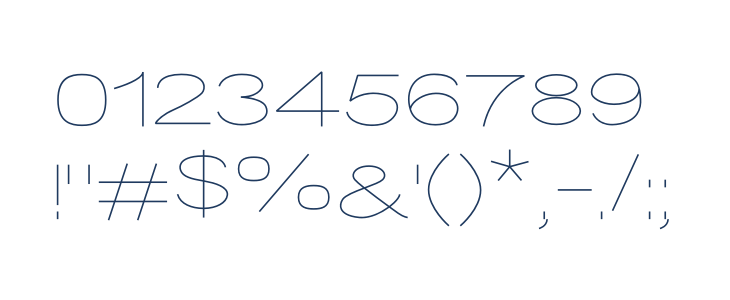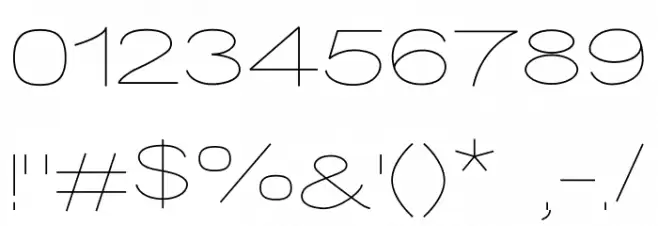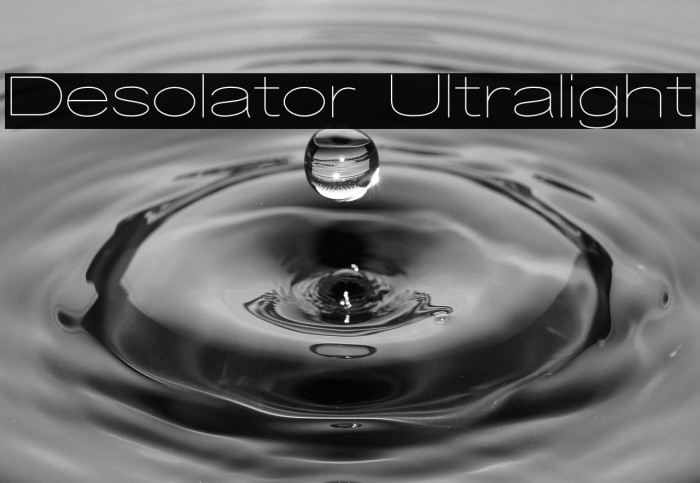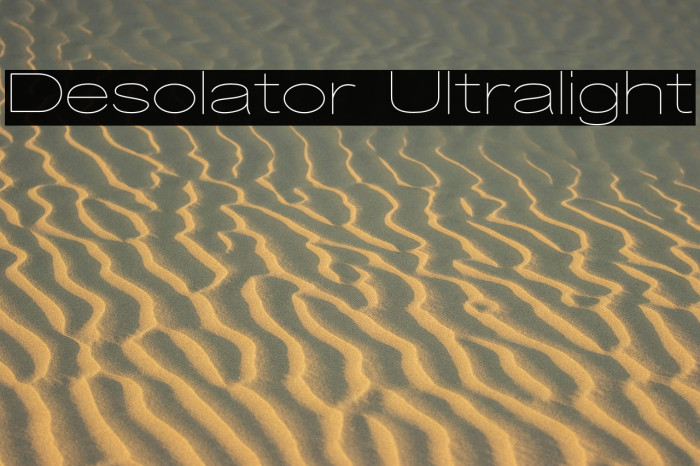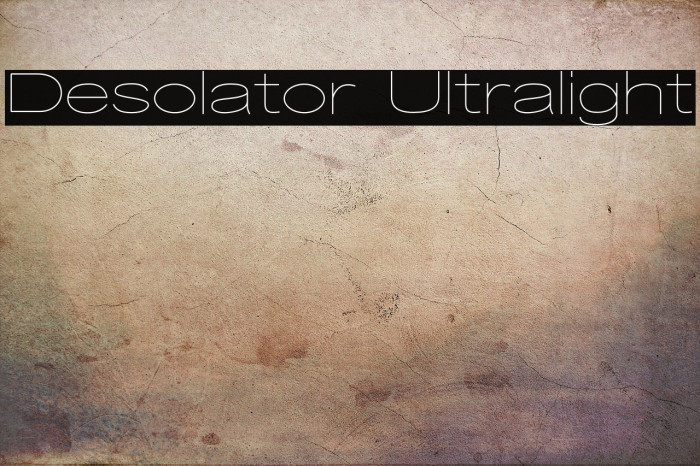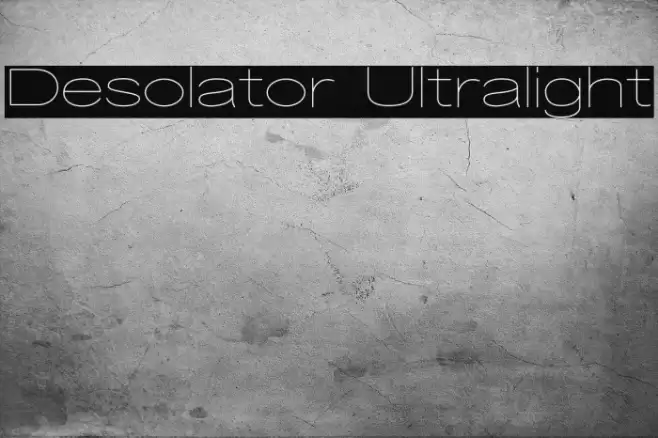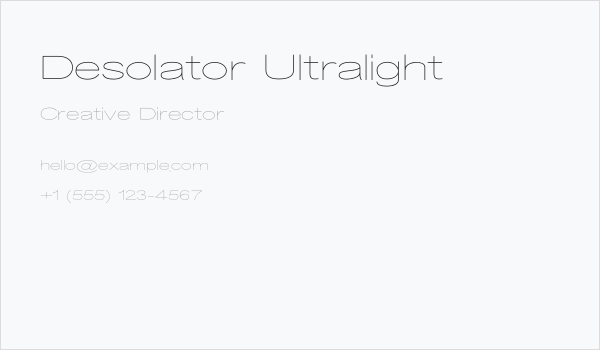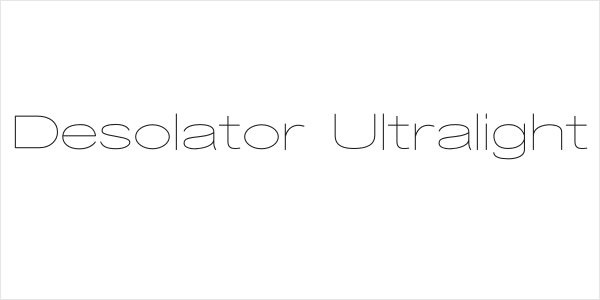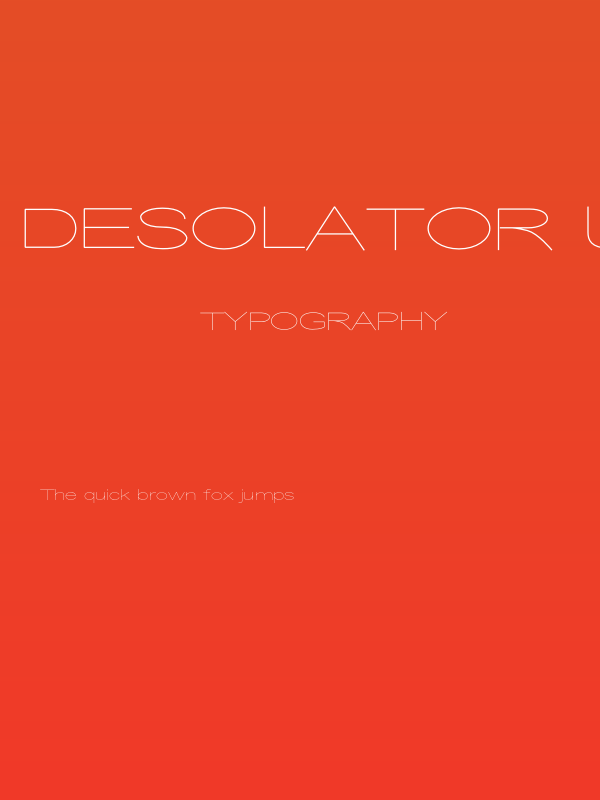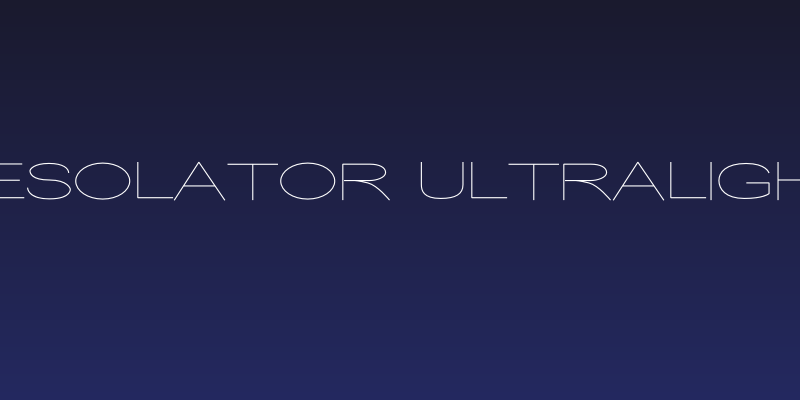
Desolator Ultralight Font
Desolator Ultralight Description
This font features an ultralight, minimalist design with clean, geometric lines. The characters are constructed with a consistent stroke width, giving it a sleek and modern appearance. The uppercase and lowercase letters maintain a uniform height, contributing to a harmonious and balanced look. The numerals and special characters are designed to complement the alphabet, ensuring readability and aesthetic consistency. The overall style is contemporary, making it suitable for a variety of design applications where a subtle yet sophisticated touch is desired.
| Use Case | Headlines, Logos, Web design |
| Proposed Projects | Ideal for modern branding, minimalist posters, tech-related designs, and elegant web interfaces. |